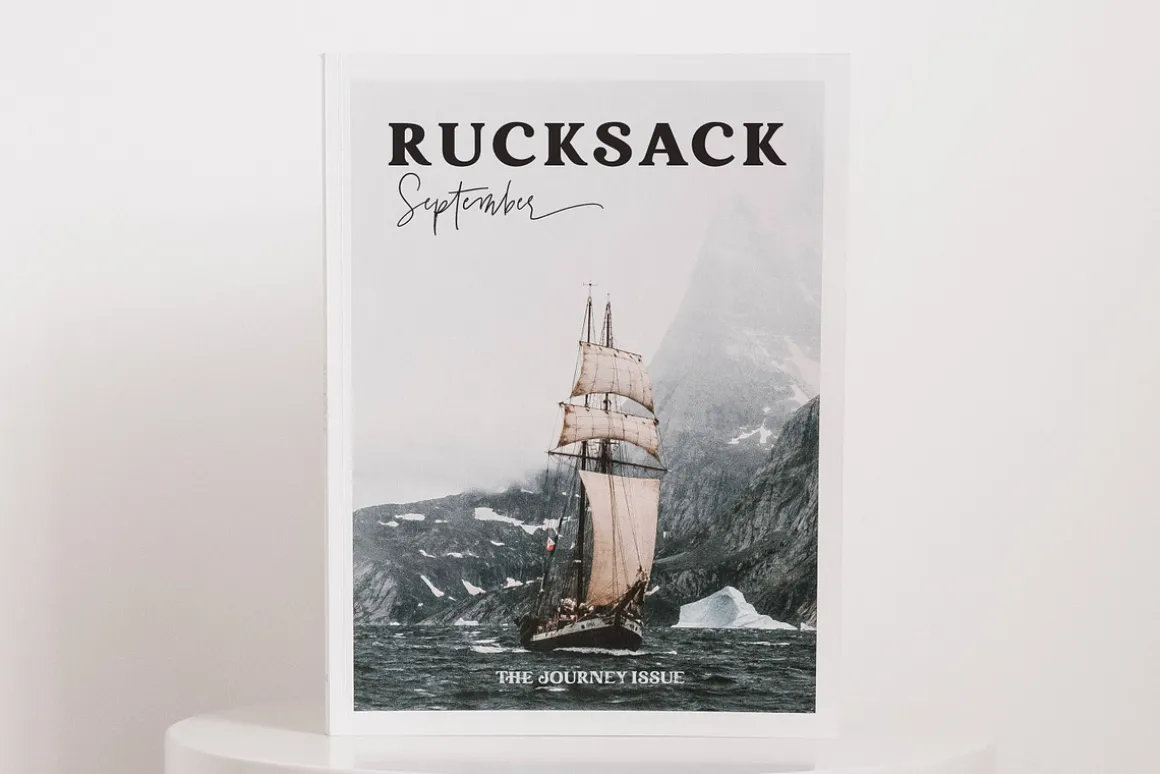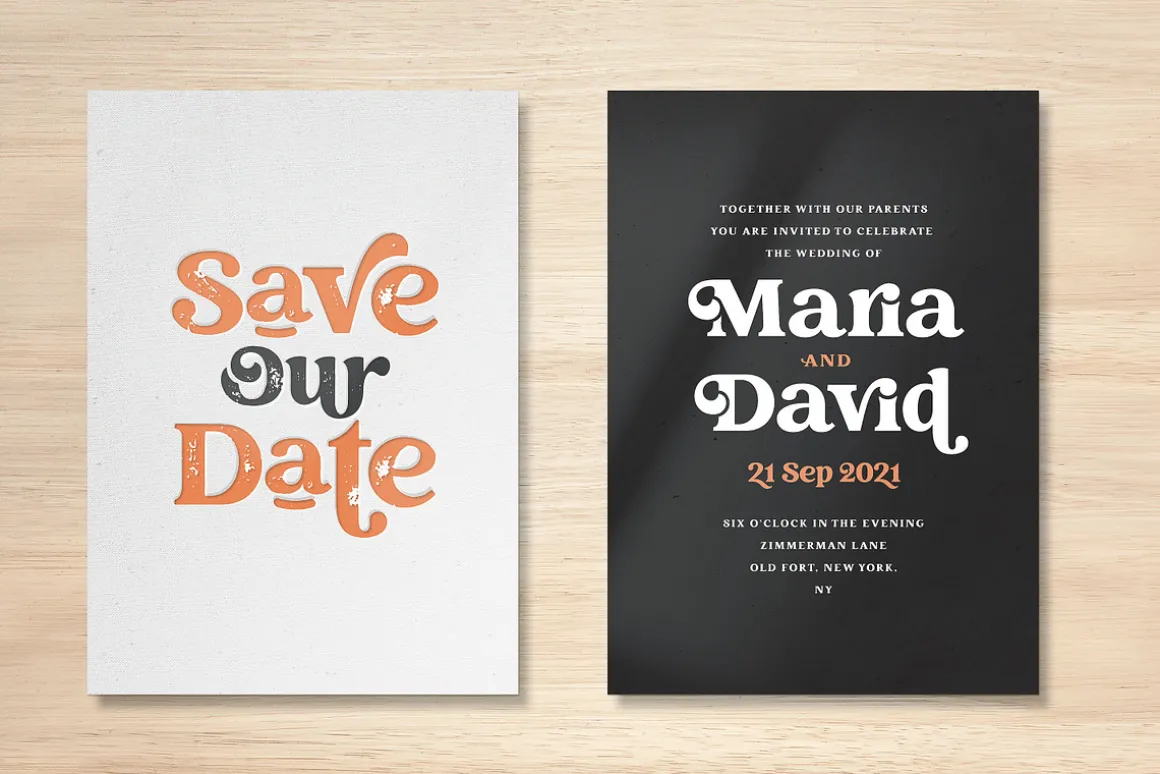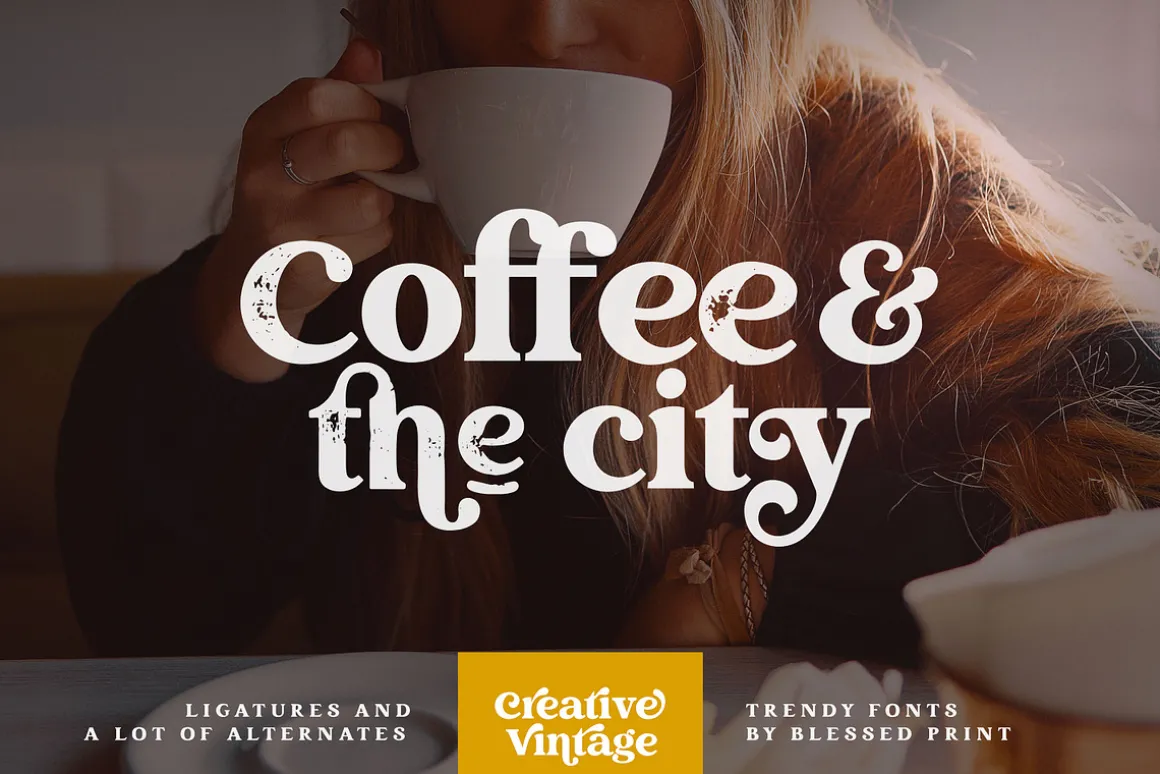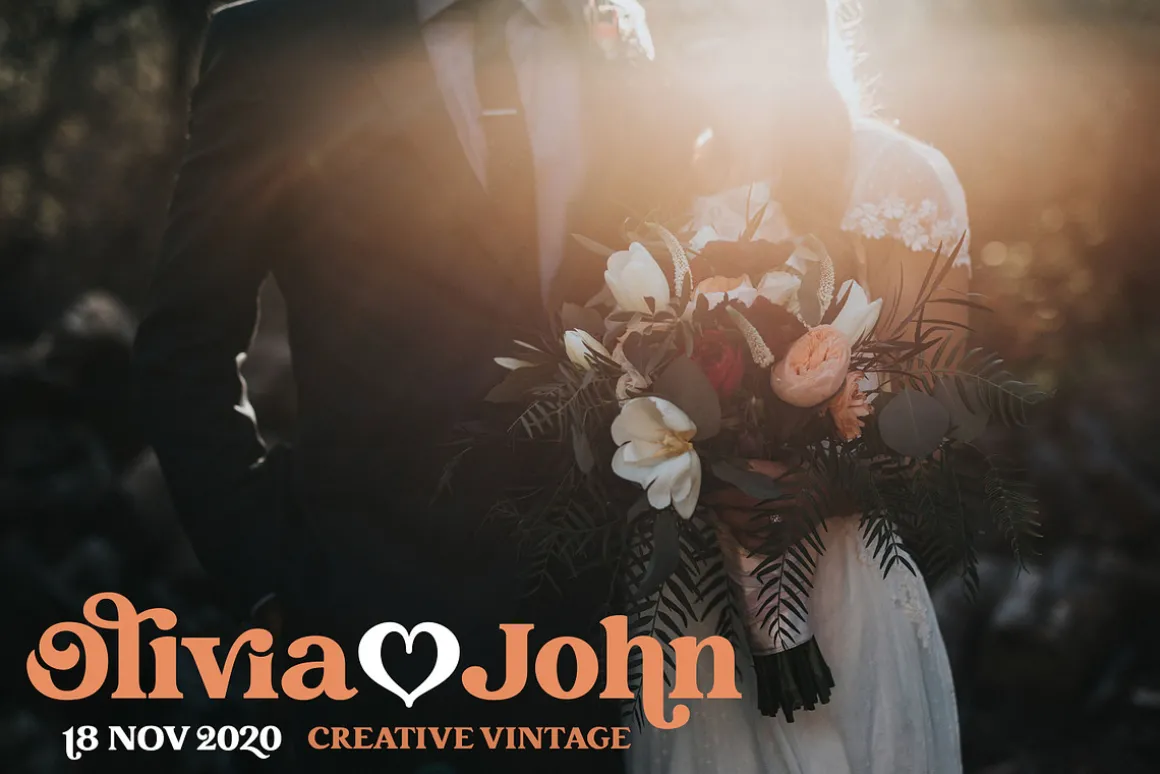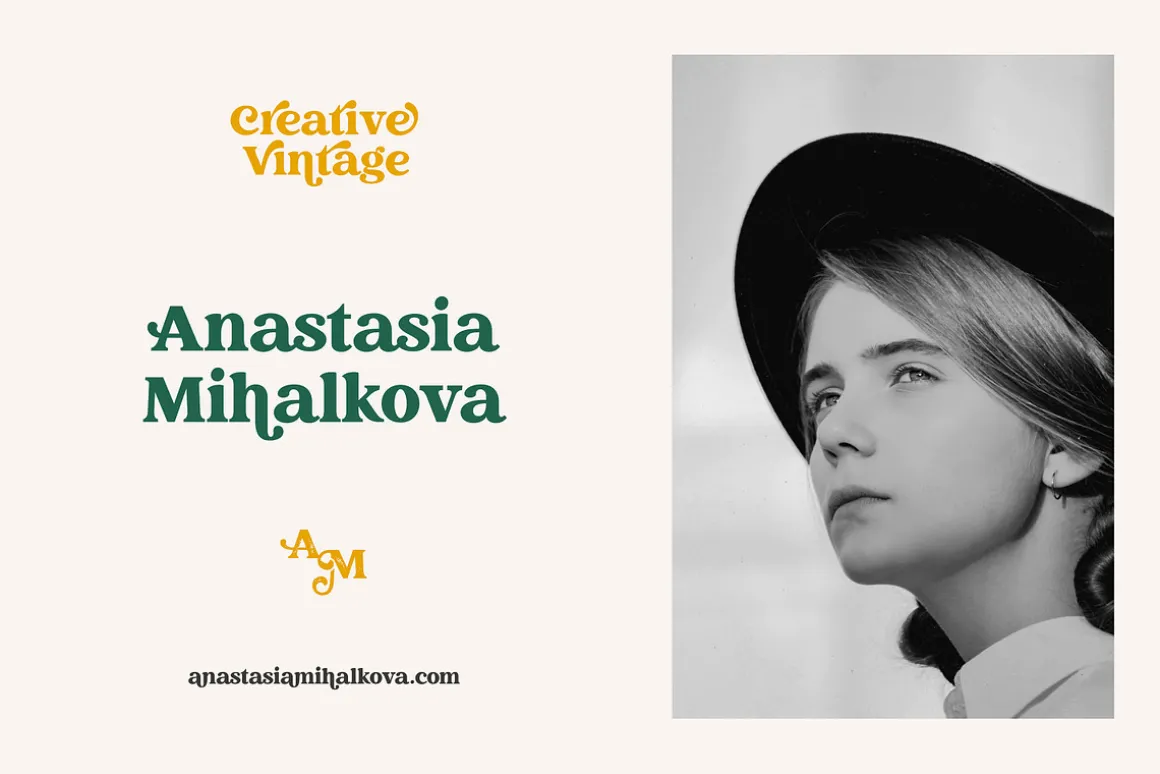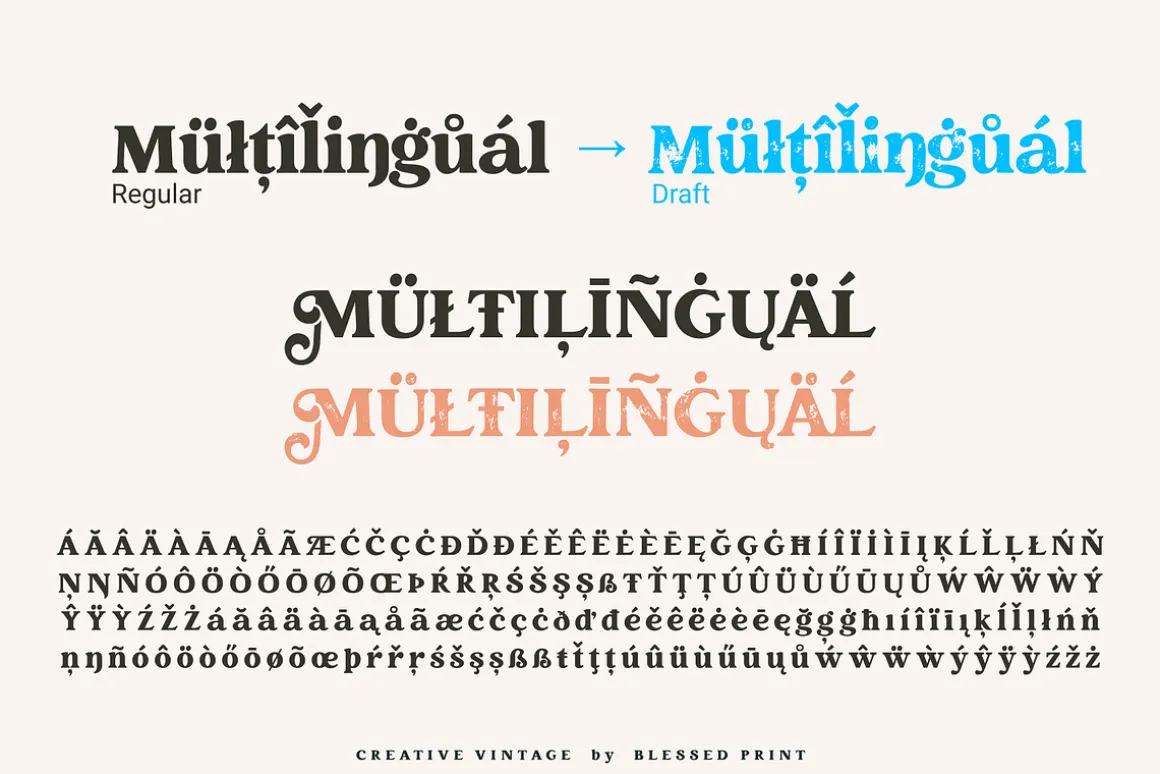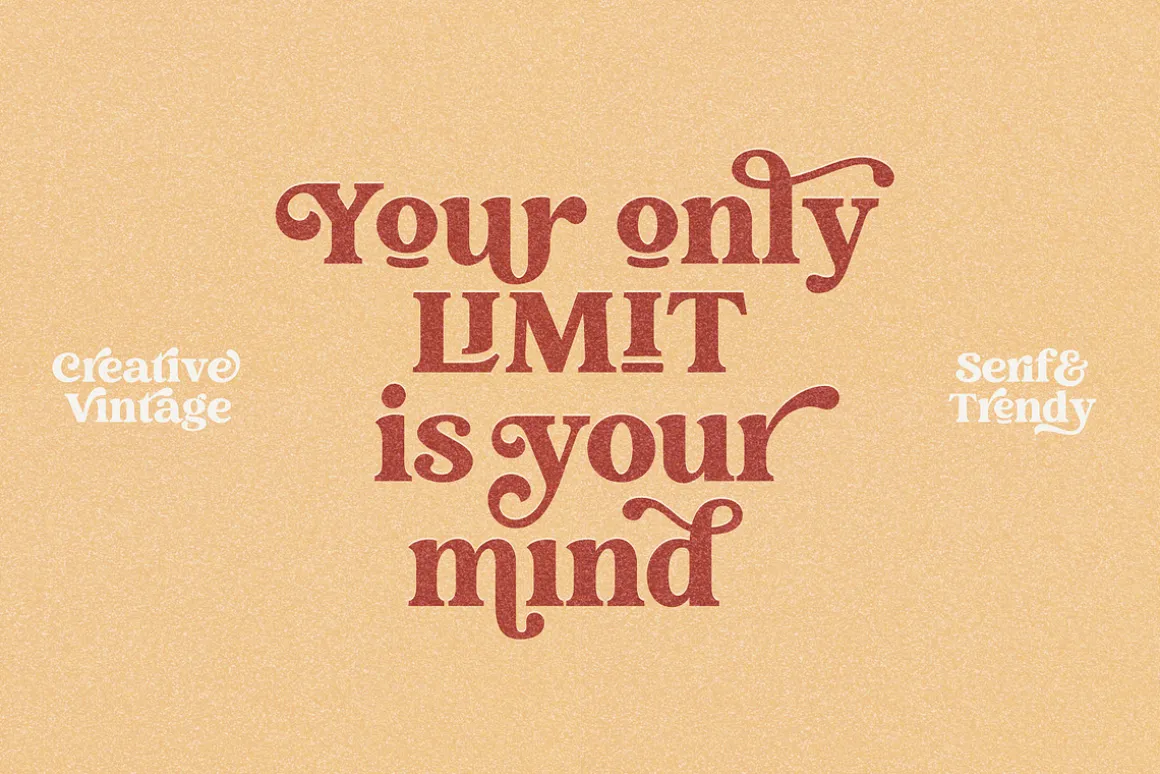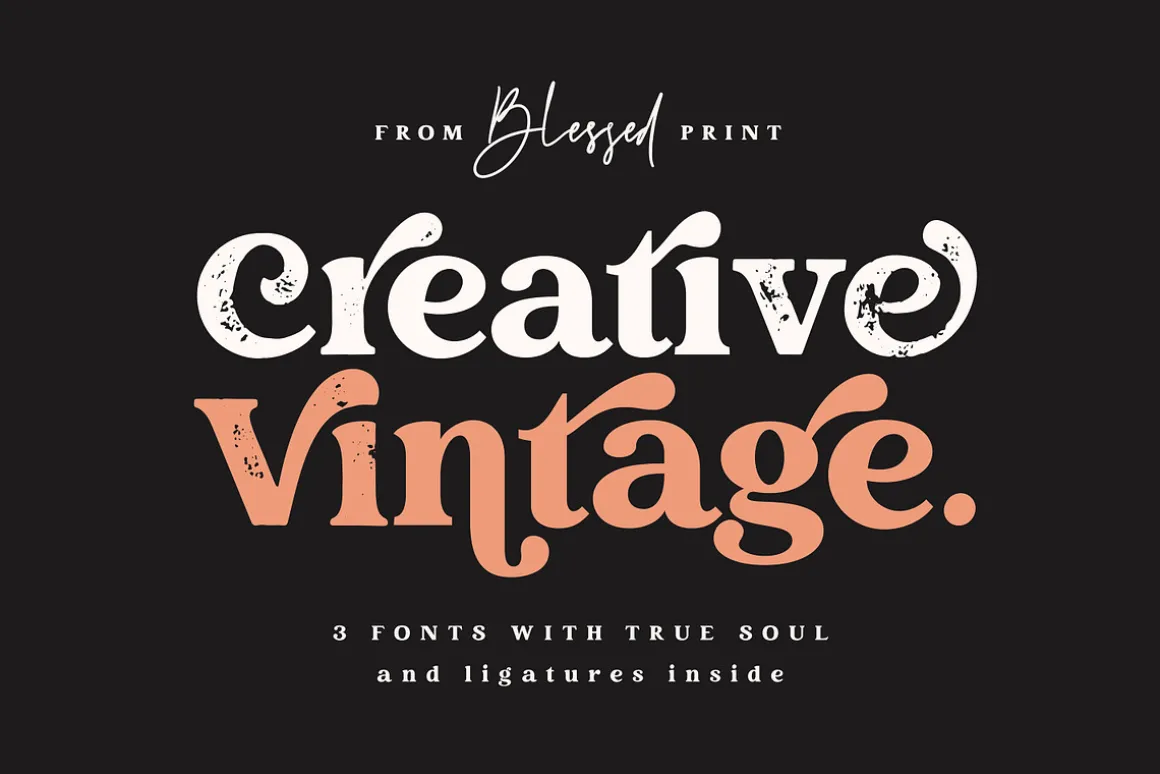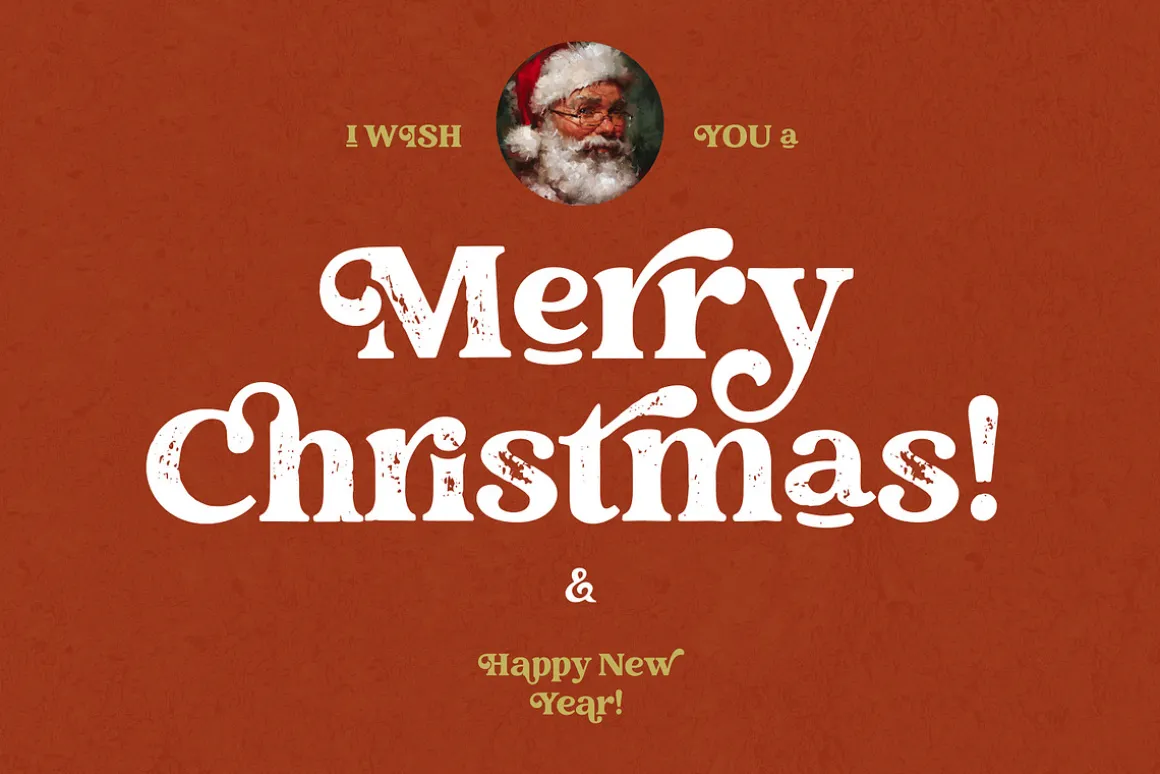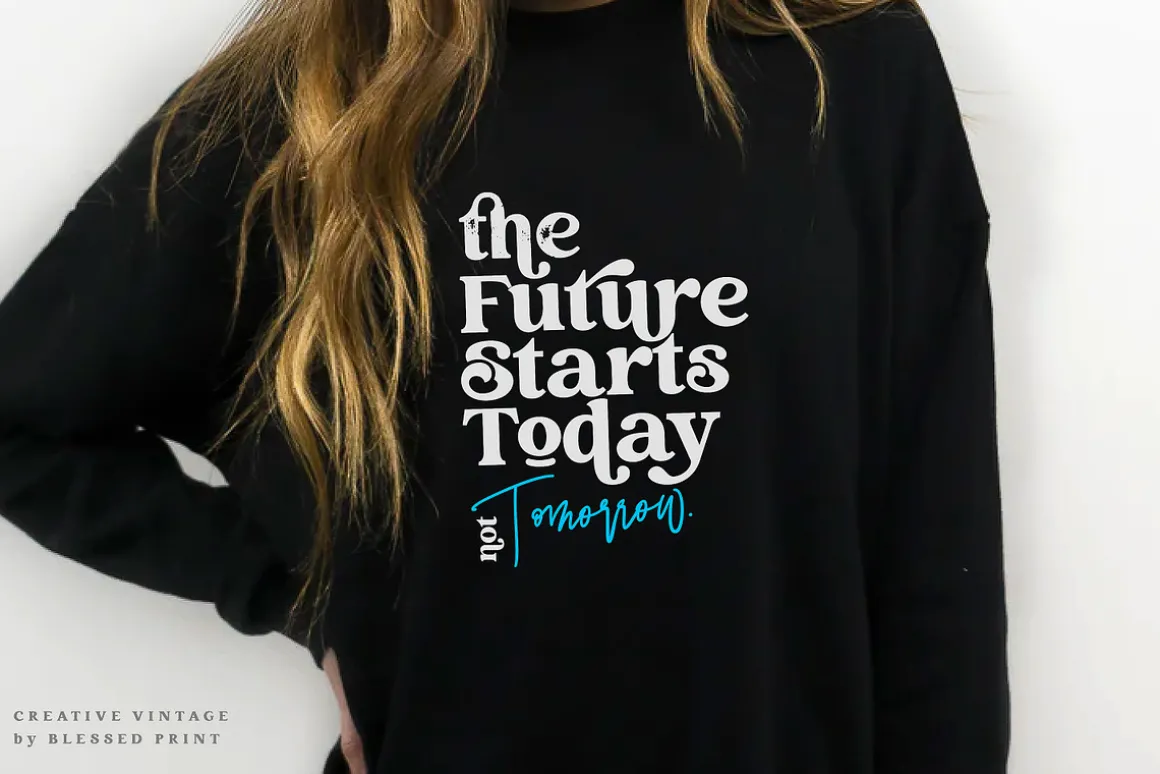
Creative Vintage – a modern serif typeface with vintage charm, fashionable look and retro-modern style
Three fonts that match each other perfectly:
Work quickly with the built-in OPENTYPE features. Insert simply PLUS (+) after any letter and get instant alternates. This function works in most applications (Templett, Corjl and others)
Creative Vintage Regular: Opentype serif font with clean shapes and precise kerning. It contains ligatures and alternates with a total of 669 PUA encoded glyphs
Creative Vintage Draft: Modern serif font with chunky, imperfect edges and shabby look. This font is a strict copy of the regular version, including glyph names, kerning, and ligatures, so you can easily change the style on the go. Alternates appears automatically when you type a plus sign after any letter or even a ligature.
Fabulous font: Modern calligraphy font with straight appearance. It comes with 3 weight (thin, normal and bold). All glyphs, ligatures and alternates are PUA coded. Elegant slashes are integrated into the letters. This script has all the necessary opentype features. Just enter numbers after each letter or [ before and at the end ] to get long lines.
Language support: Danish, Dutch, English, Estonian, Finnish, French, German, Hungarian, Italian, Luxembourgish, Northern Sami, Norwegian Bokmål, Norwegian Nynorsk, Polish, Portuguese, Romanian, Spanish, Swedish, Swiss German, Turkish.